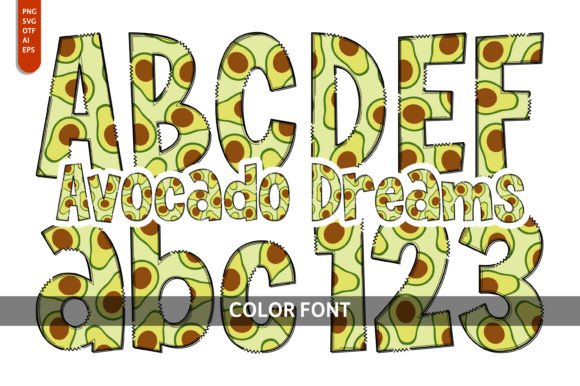
Welcome to the world of Avocado Dreams Font - a kaleidoscope of colors and a splash of joy for your creative ventures!
Picture this: a font so captivating, it dances off the page, injecting life into every word and phrase. Imagine the allure of a font that speaks a thousand words, effortlessly conveying emotions and setting the tone for your designs. Look no further, for Avocado Dreams Font is here to transform your creative visions into vibrant realities.
Step into a universe where colors intertwine and letters come alive, carrying your messages with a playful, artistic flair. Whether you're crafting children's books filled with whimsical tales, designing posters that burst with energy, or creating invitations and greeting cards that exude warmth and cheer, Avocado Dreams Font is your ultimate companion.
Unleash your imagination and watch as your words take on a life of their own. This font is not just a collection of characters; it's an experience that captivates audiences, leaving them spellbound and eager for more. So, dive into the realm of Avocado Dreams Font and let your creativity soar to new heights!
So, why settle for ordinary when you can embrace the extraordinary? Embrace Avocado Dreams Font today and embark on a creative journey that's bursting with color, charm, and endless possibilities!